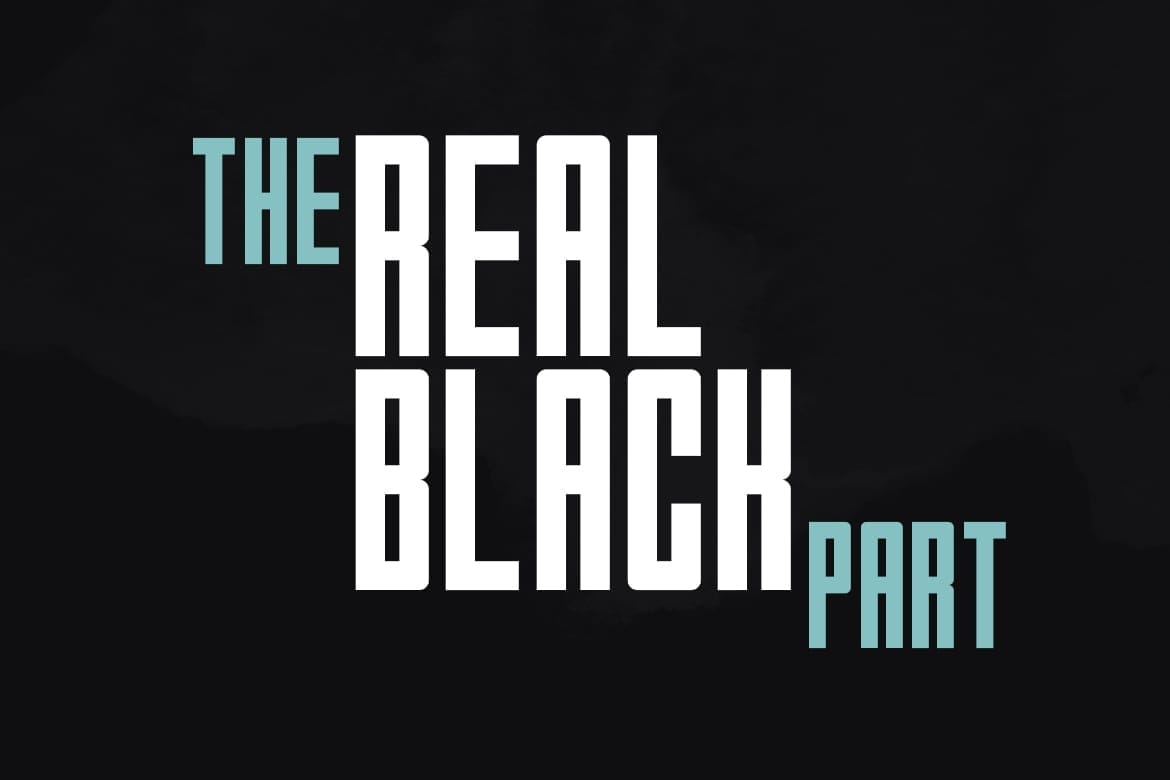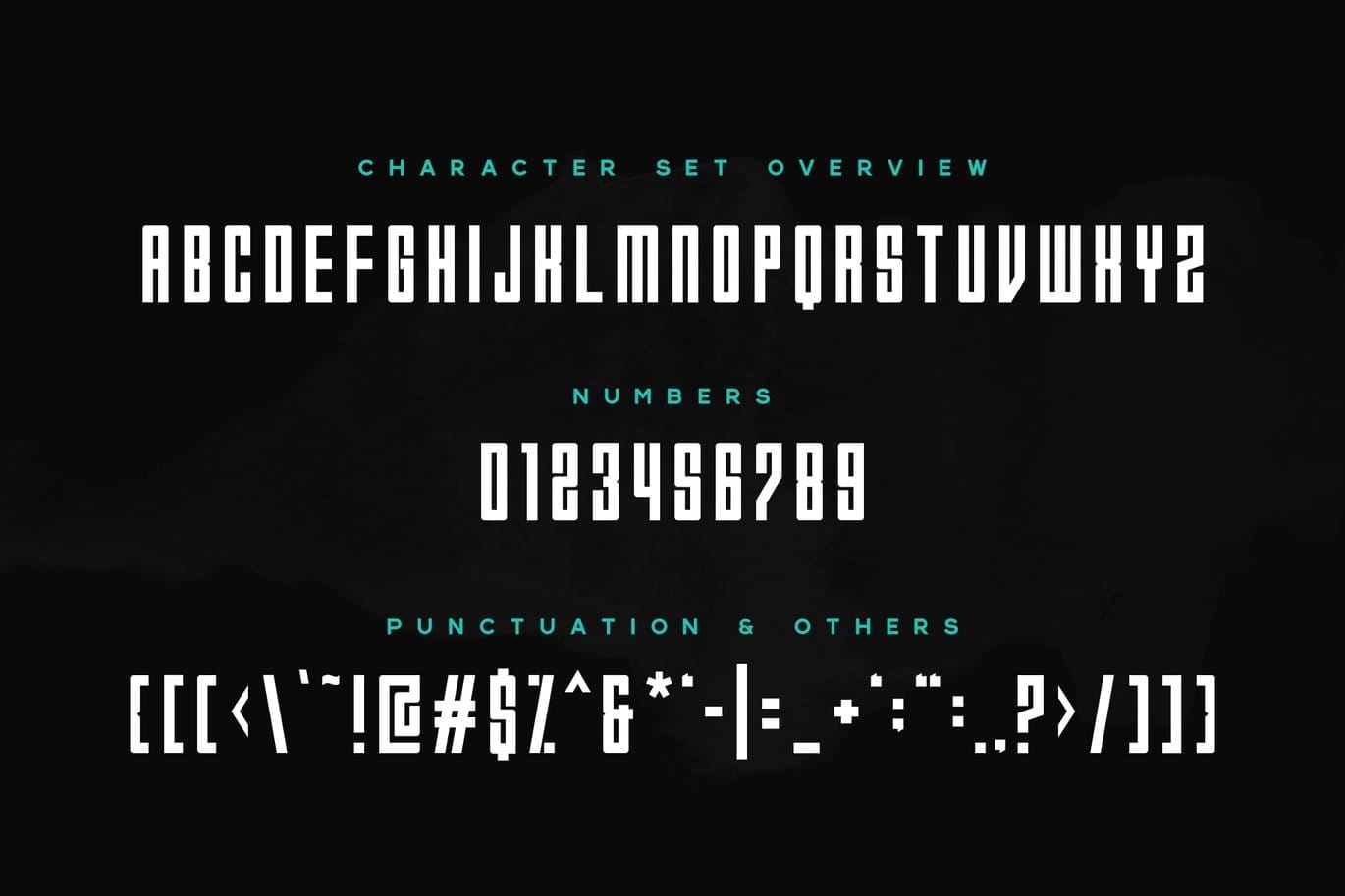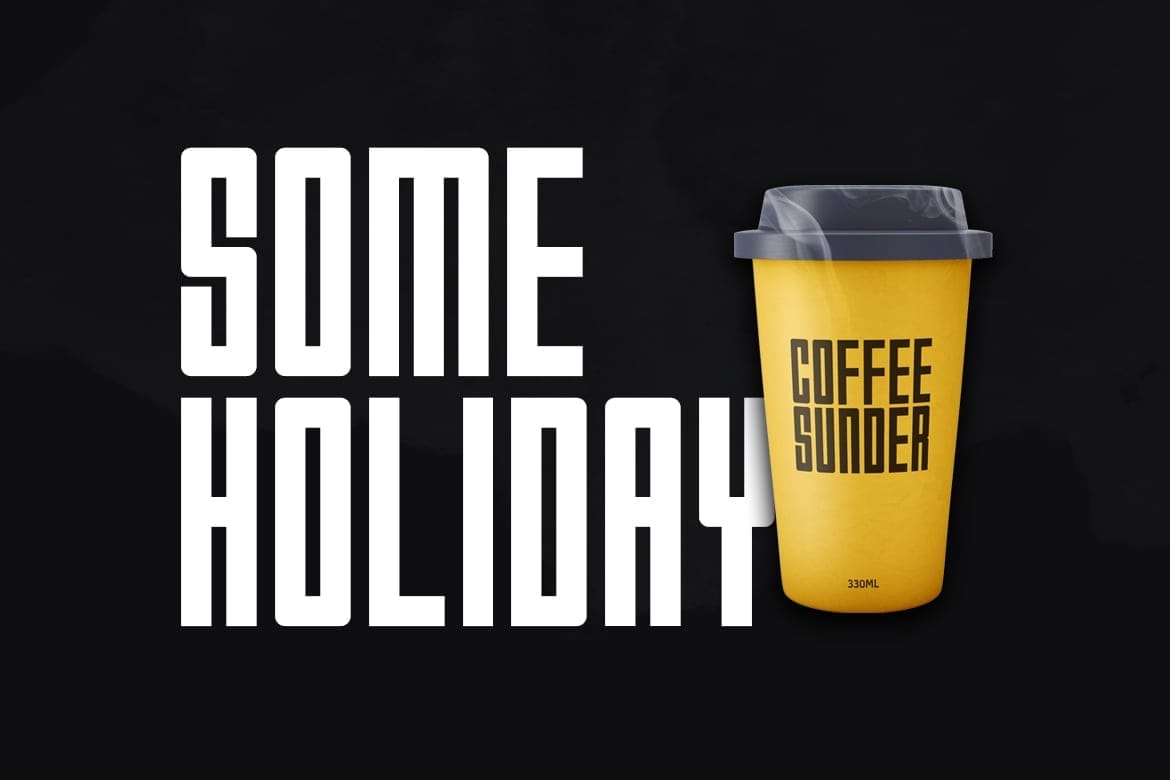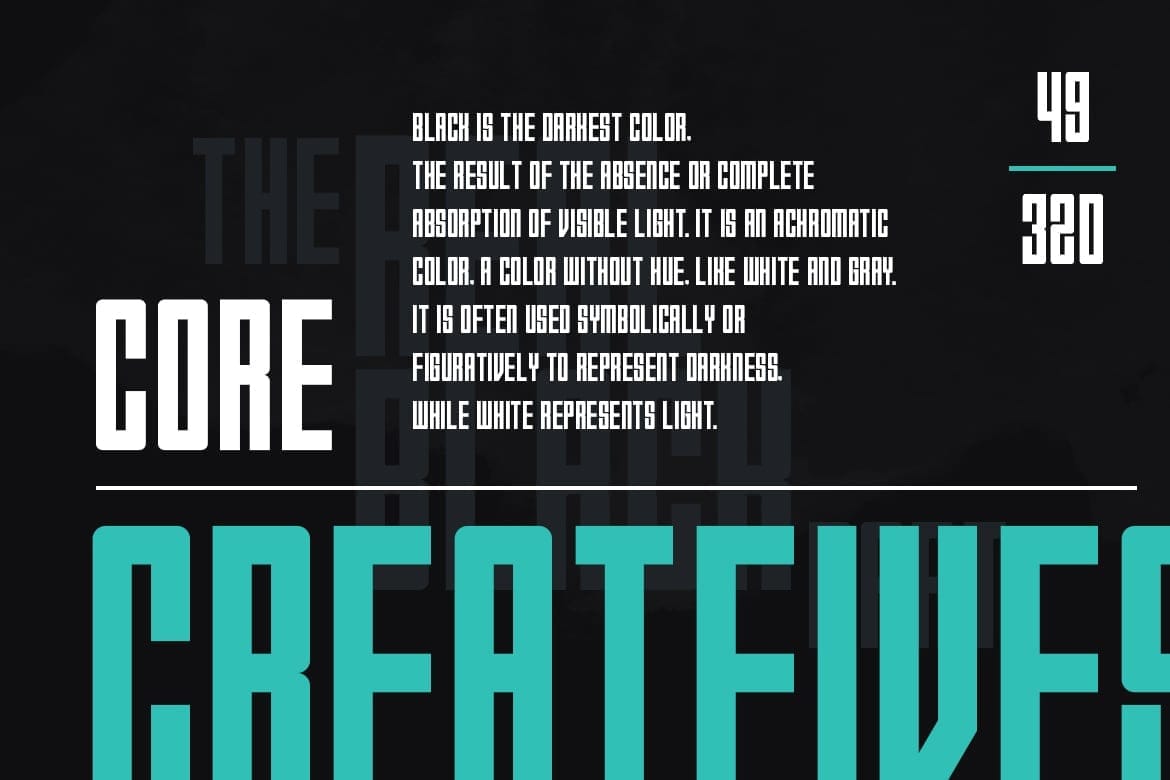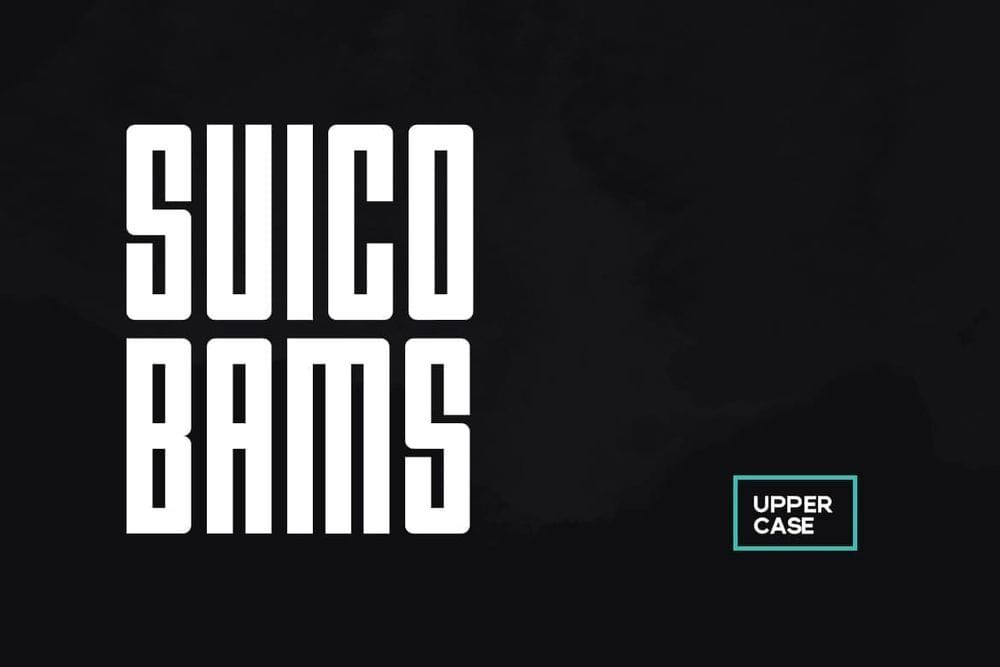
Suico Bams Font
INTRODUCE
Suico Bams an unique BOLD minimal & All Caps typeface / modern Sans Serif / Display / that capabilities refresh your brand. Use them for branding purposes, where this typeface can be a choice for creating logotypes, branding, headlines/header, poster campaign, marketing materials for web & print as well as any type of minimal designs.